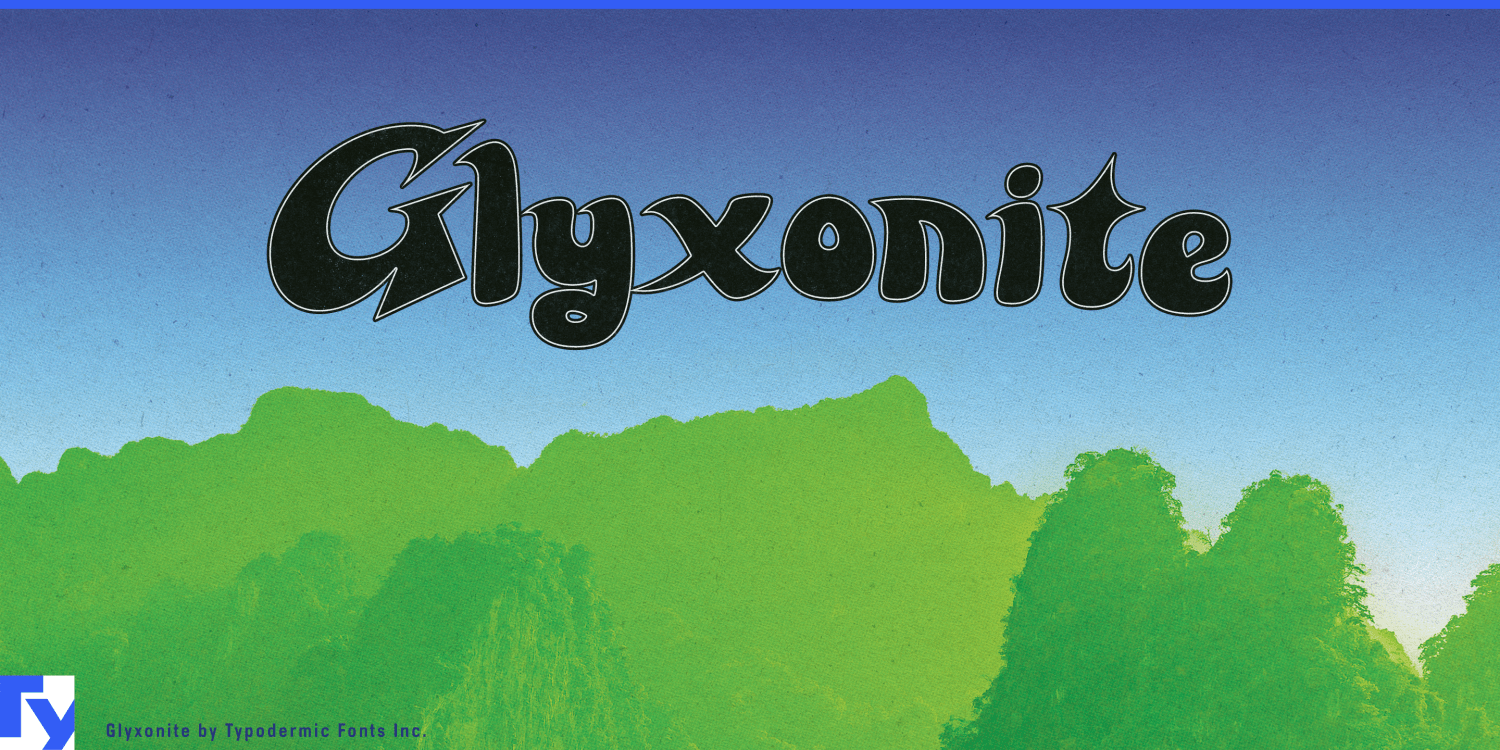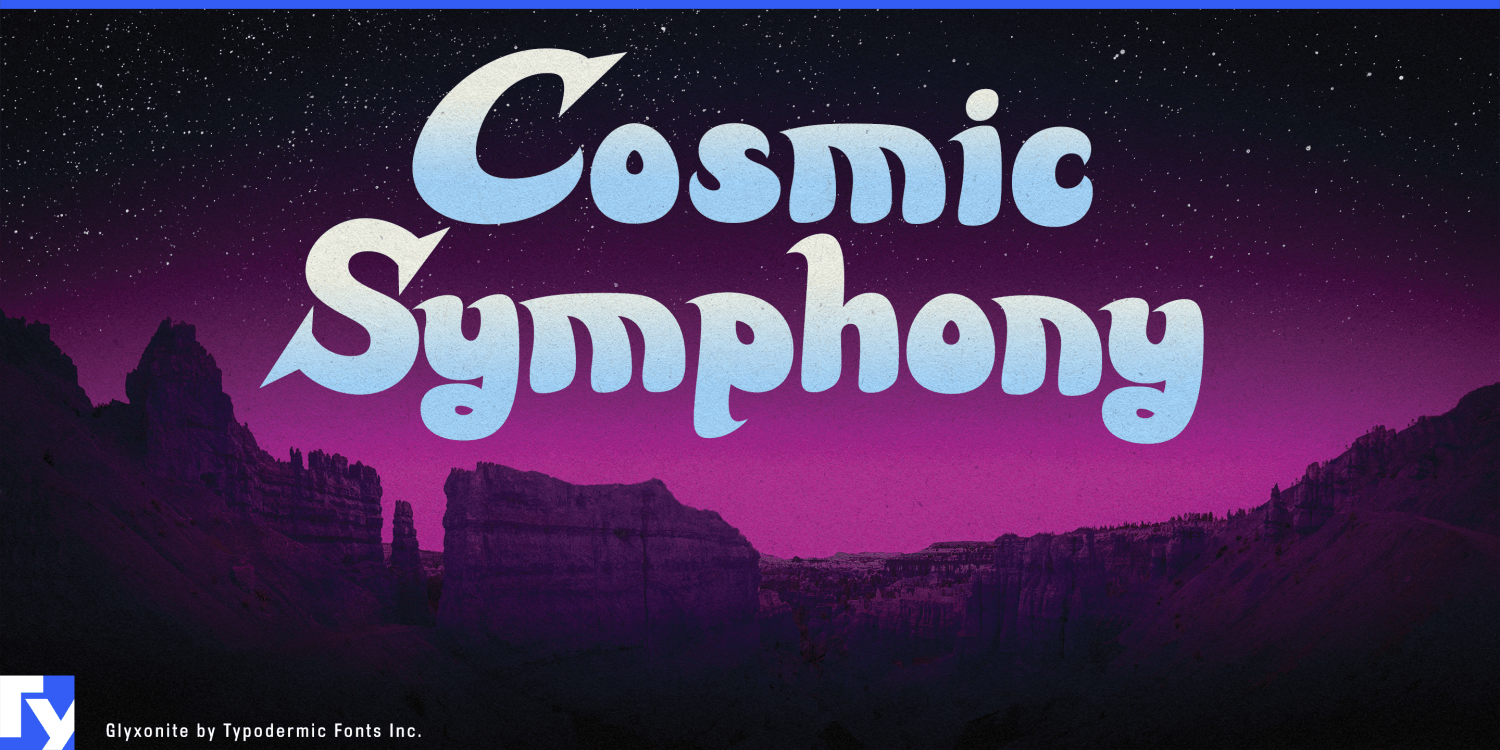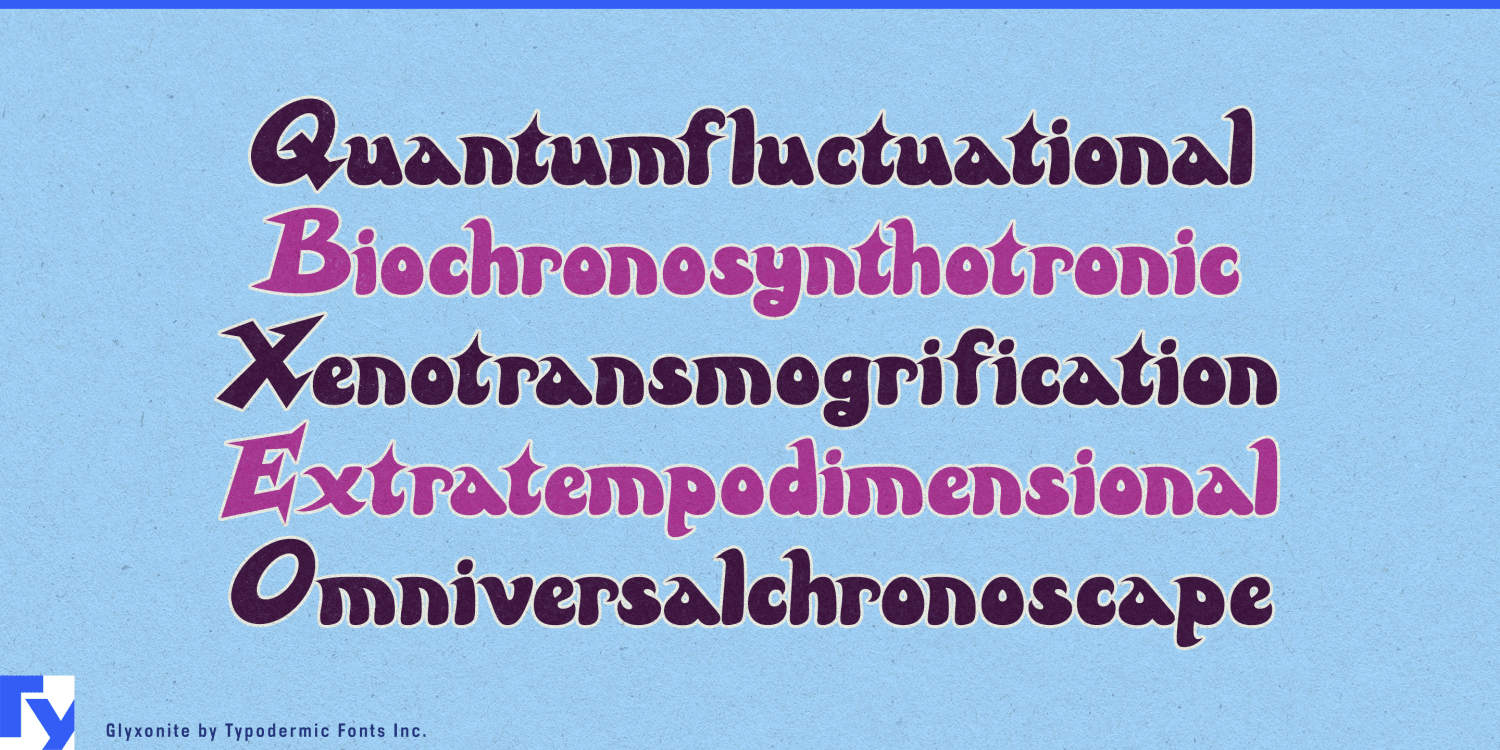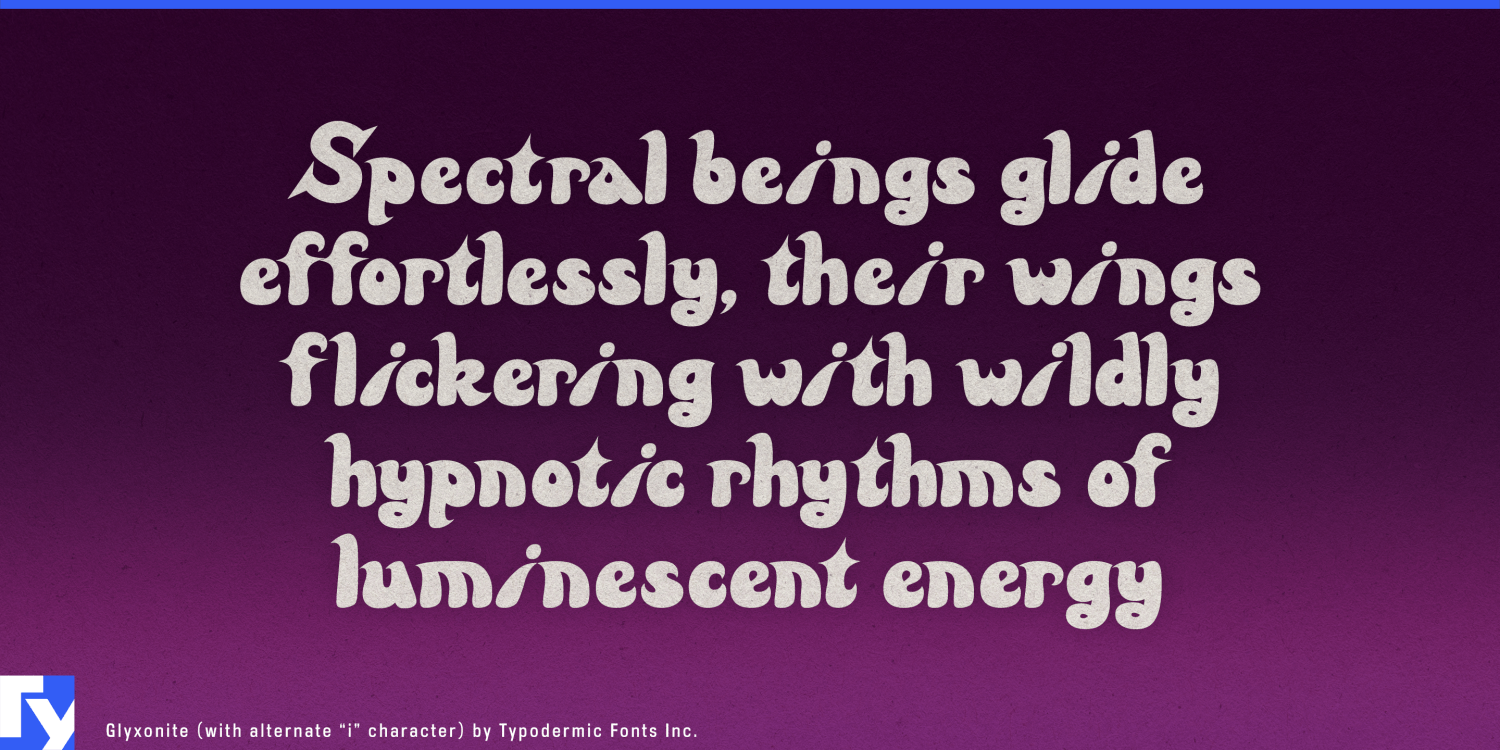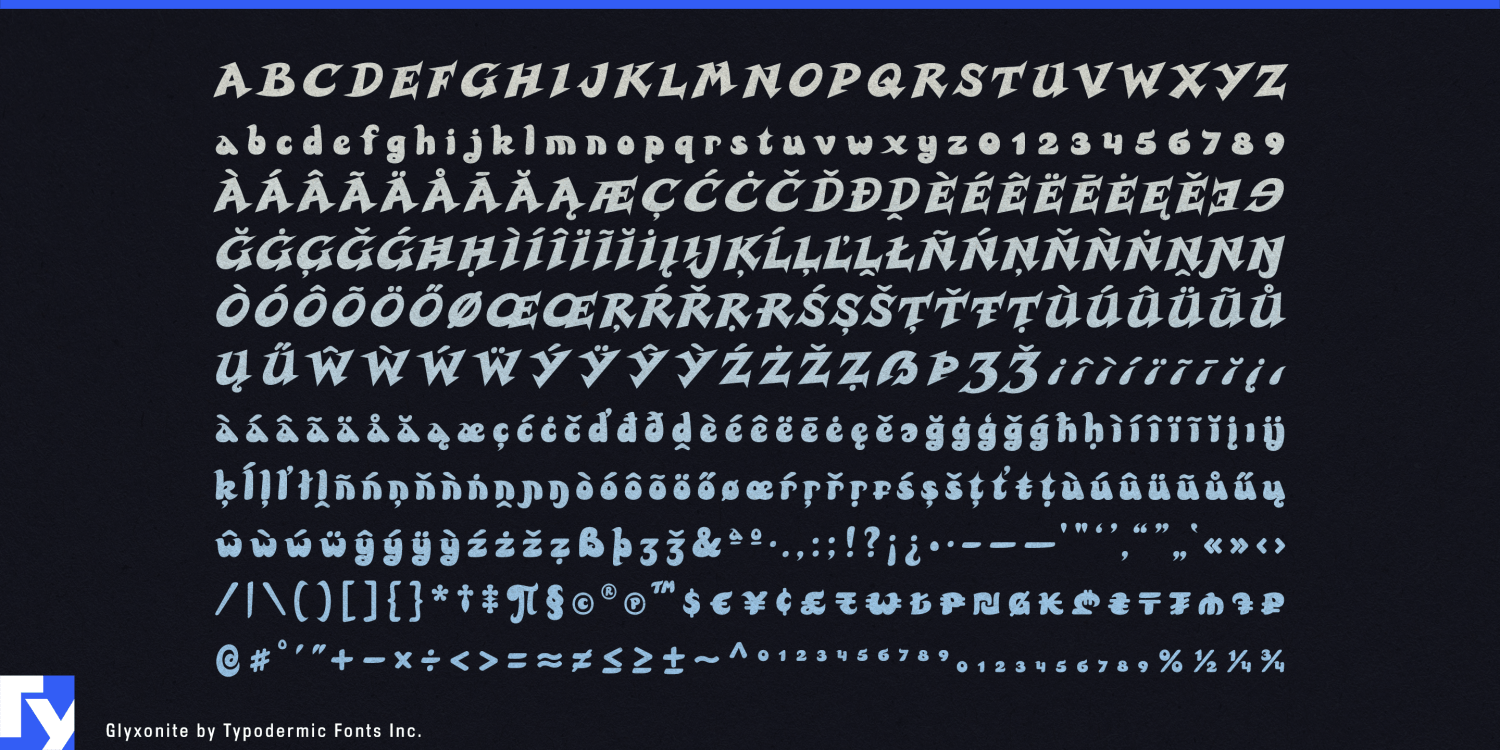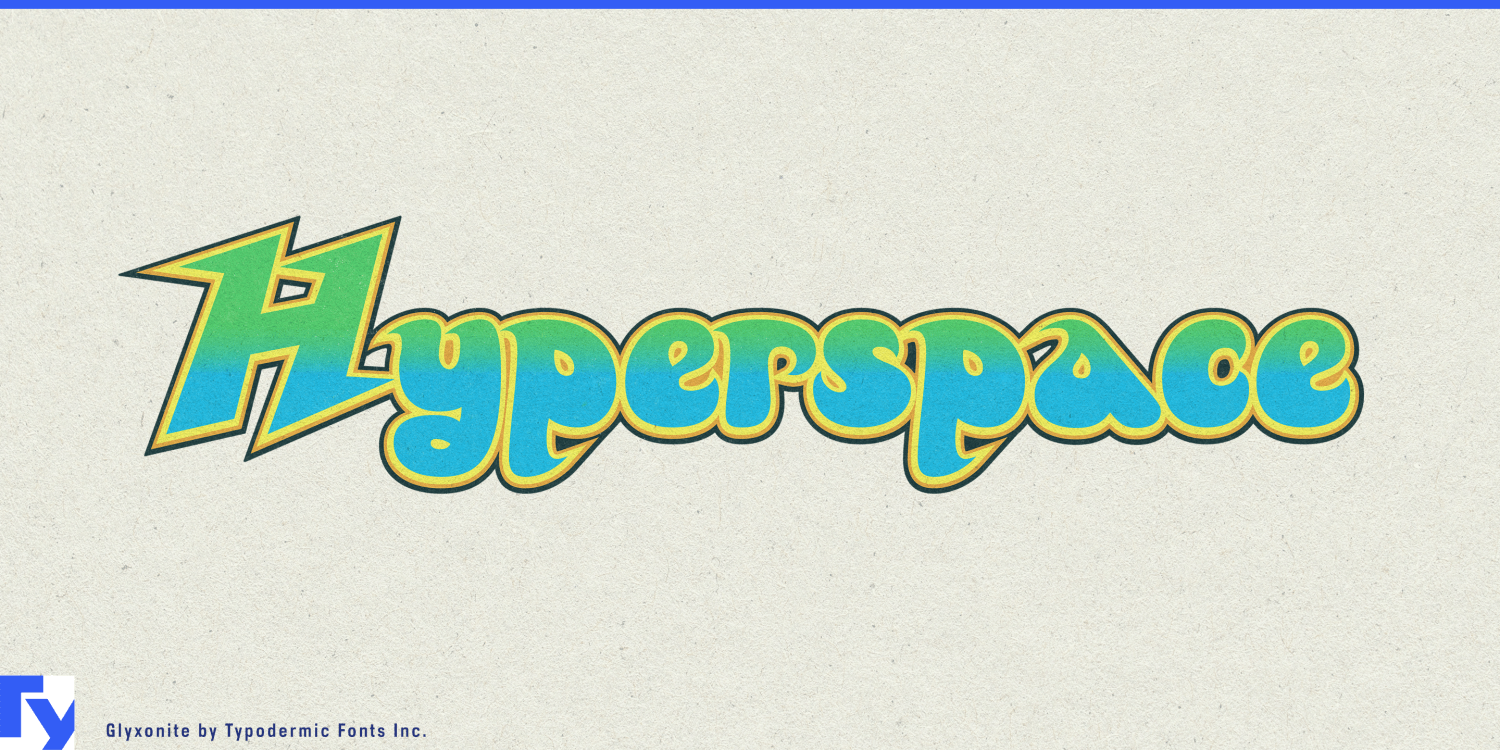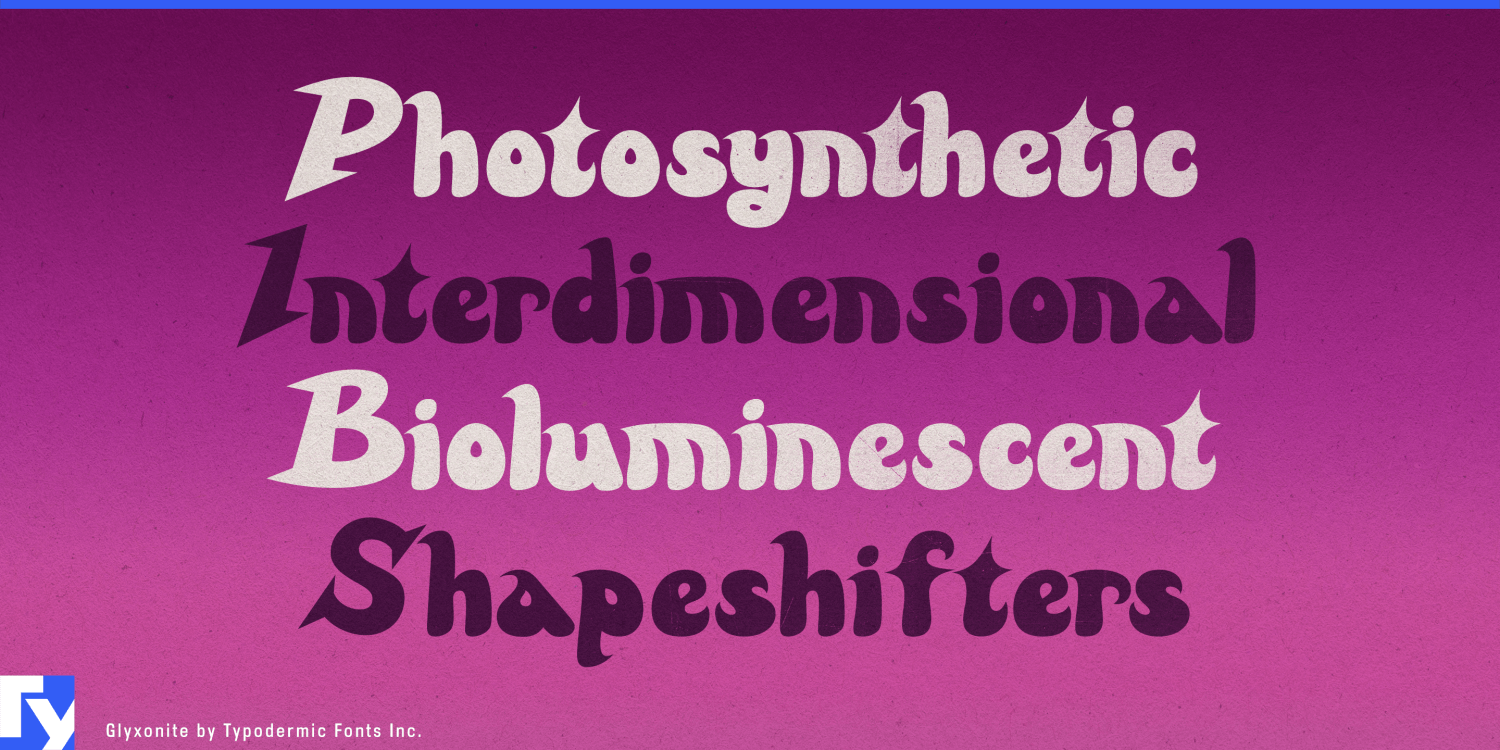
Glyxonite
New materials increasingly blur the line between things that are engineered and things that are grown. Yet the typography used to present them usually forces a choice between sterile technology and familiar nature branding. Glyxonite occupies the space between those languages. Its flowing, swollen forms can feel biological, while abrupt cuts and angular interruptions keep the structure from becoming soft or botanical.
Biofabricated materials provide an especially strong setting. Mycelium composites, algae-derived textiles, fermentation-produced materials and bio-based leather alternatives need names that can look unfamiliar without slipping into pharmaceutical typography or eco clichés. Glyxonite can handle material-family names, sample-book covers, trade-fair walls, launch films and collaboration graphics while a restrained companion face explains composition, performance and manufacturing.
Synthetic color and next-generation textiles push the same idea further. Microbial pigments, bioengineered dyes, experimental fibers and materials whose color is produced through biological processes need a visual language capable of carrying both science and spectacle. Glyxonite can identify pigment families, textile collections, fashion-tech collaborations, swatch books and material-innovation exhibitions without making the project look like conventional laboratory equipment.
Astrobiology offers another version of the problem. Space typography usually describes machines: spacecraft, instrumentation and aerospace engineering. Planetariums, science centers and natural-history museums sometimes need to talk about something else entirely; exoplanets, ocean worlds, biosignatures and imagined alien ecosystems call for typography that can feel extraterrestrial without becoming another angular spaceship font. Glyxonite gives exhibition titles, planetarium programs and immersive environments a visual language for space as habitat rather than hardware.
Games and screen entertainment built around speculative ecology can use the same quality. Alien biomes, terraformed worlds, engineered organisms, strange oceans and evolutionary experiments need names for planets, species, regions, chapters and expansions. Glyxonite can handle those dramatic naming moments while a practical interface family carries menus and information.
Living materials and bio-design bring Glyxonite back into the physical world. Experimental pavilions, mycelium interiors, algae systems, grown acoustic materials and biologically derived building components can use it for project names, exhibition graphics, architecture-biennale installations and fabrication-lab presentations.
Glyxonite works best when the subject cannot comfortably be described as either natural or technological. Biofabricated materials, synthetic color, astrobiology and speculative ecosystems can use its flowing forms and engineered interruptions to make that contradiction visible before a line of explanation is read.